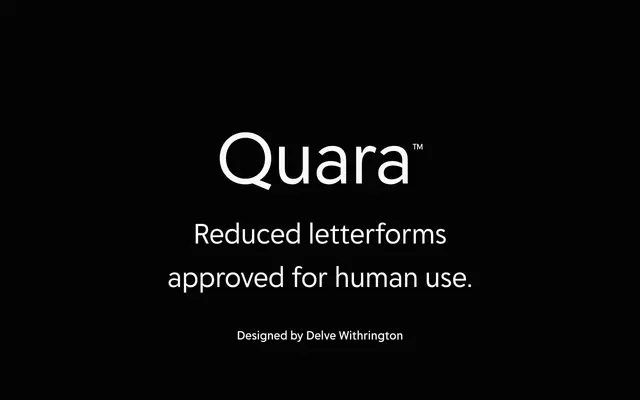
Quara
A compact geometric sans with square forms and stroke omissions near joins, taking its aesthetic cues from OCR letterforms and technology design.
Designed by Delve Withrington from an abandoned custom project, Quara uses deliberate simplification of strokes at joins, a technique borrowed from early OCR type design, as both a functional and aesthetic device. The square-ish letterforms with lightly rounded terminals give it a clean, technology-inflected look suited to headlines, subheads and short passages. Coverage spans Basic Latin through Latin Extended-A with support for 152 languages.
Quara's square forms, slightly rounded terminals and stroke omissions near joins place it firmly in the geometric/techno display category, drawing on OCR and avant-garde technology aesthetics rather than humanist or grotesque traditions.